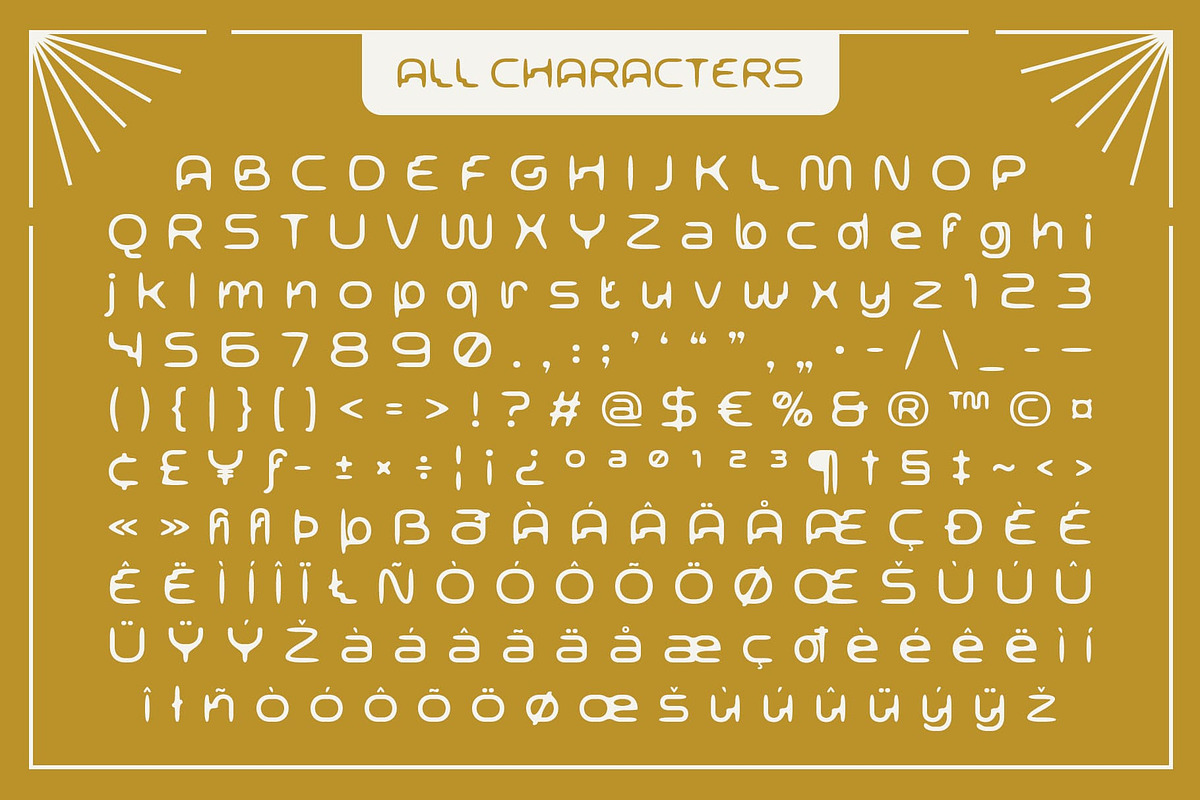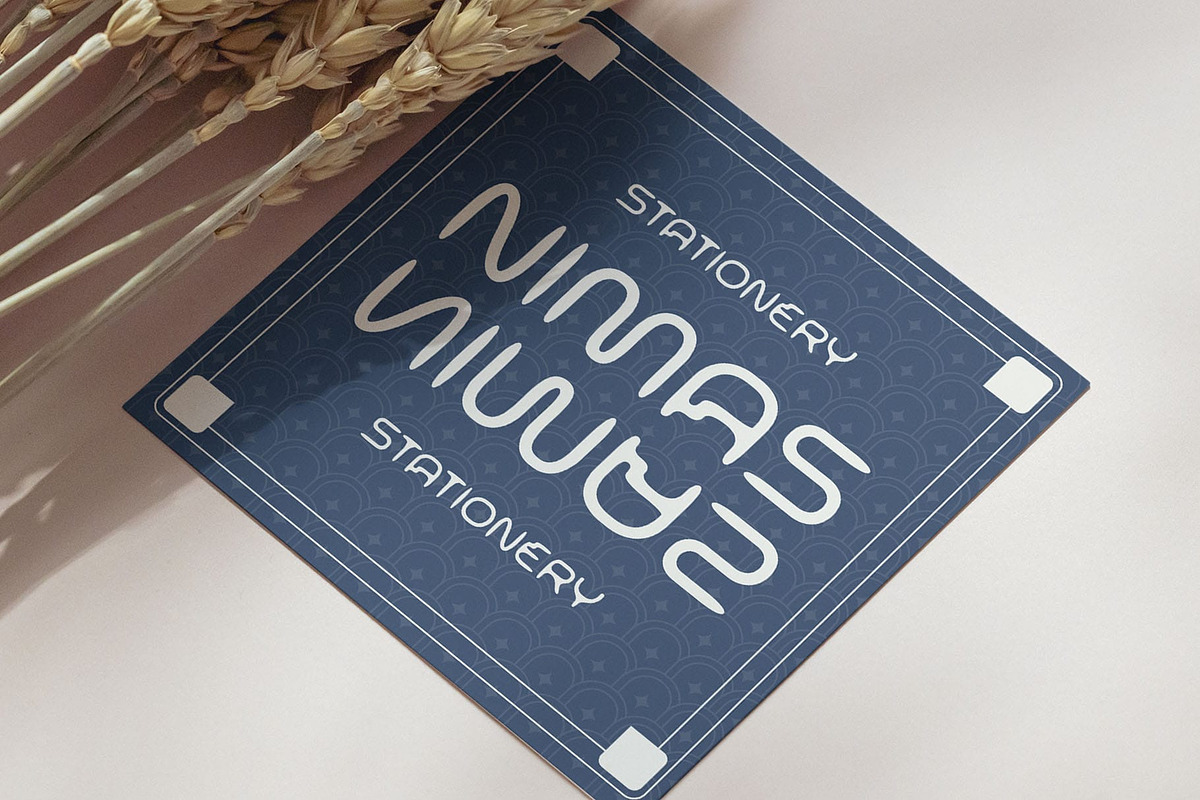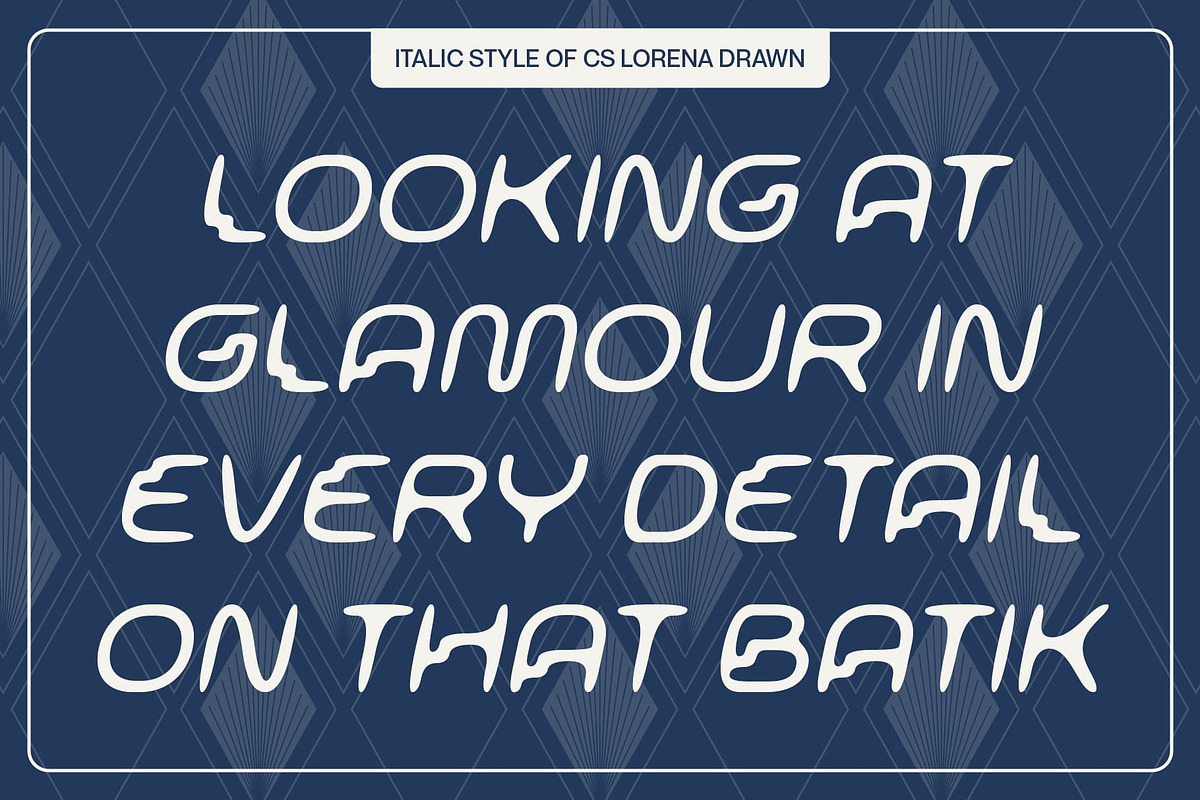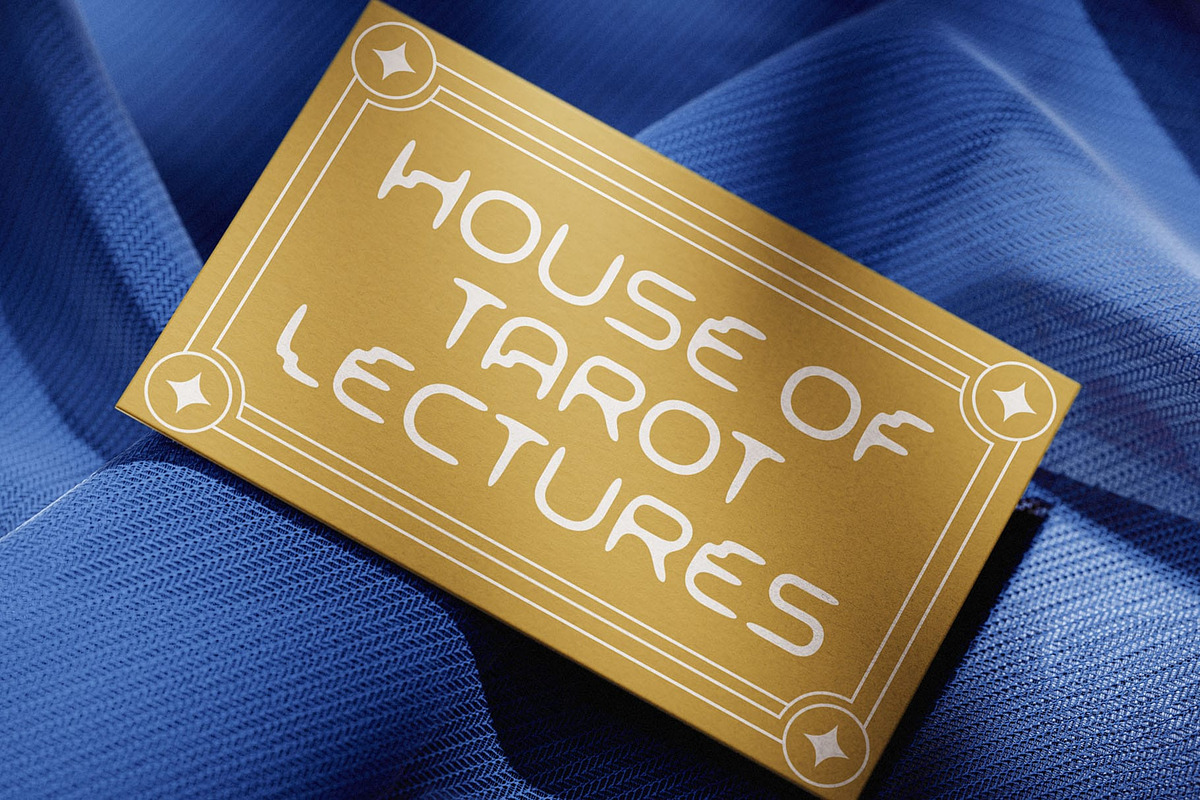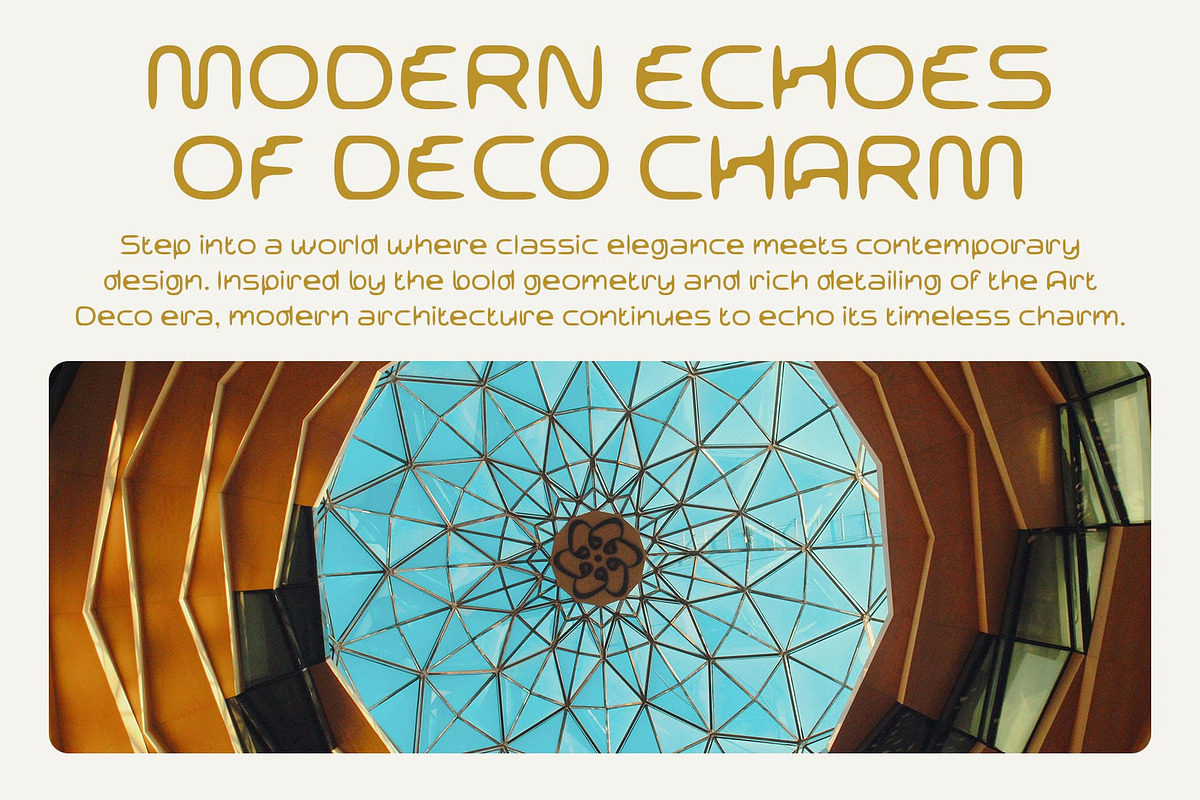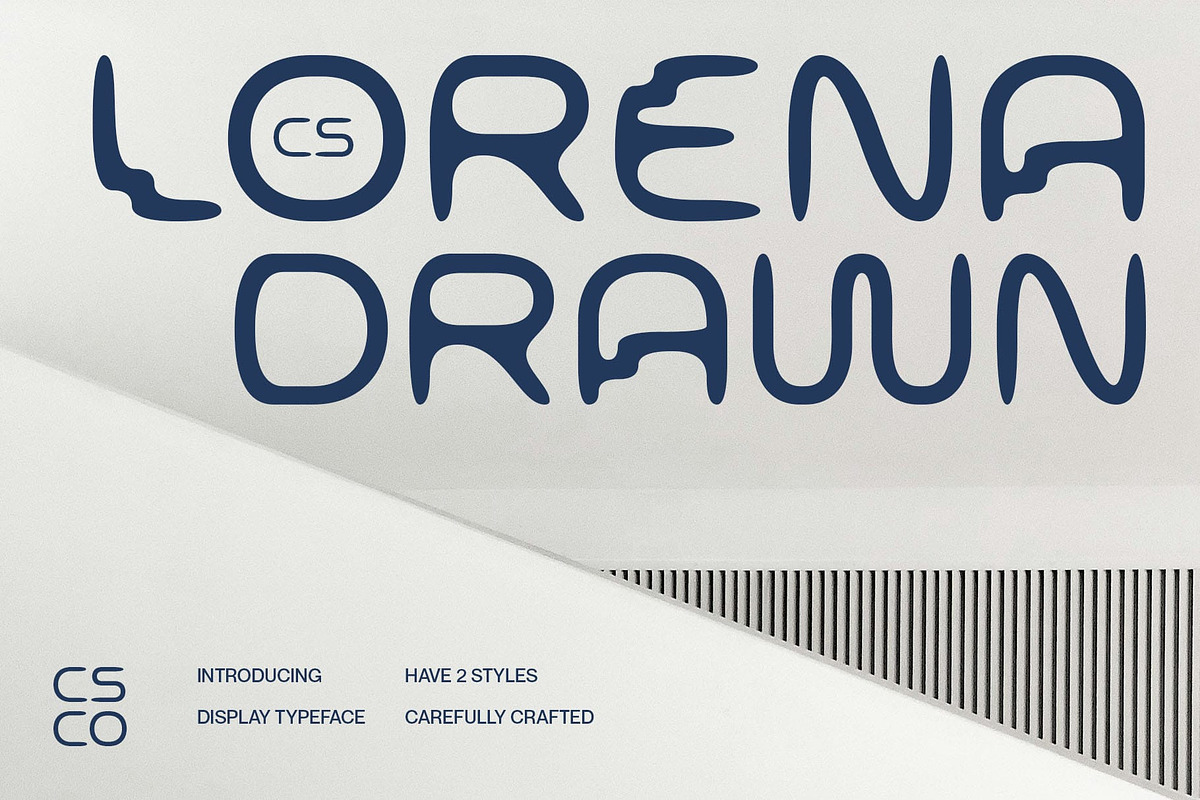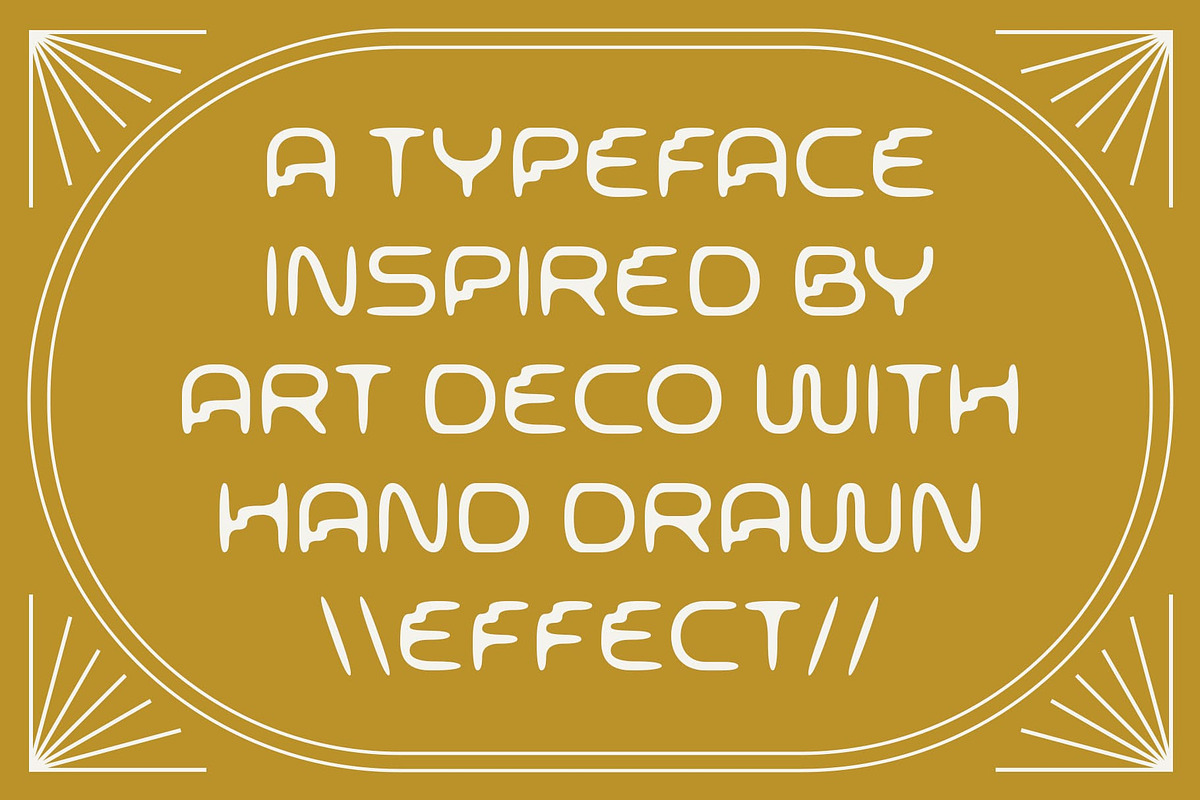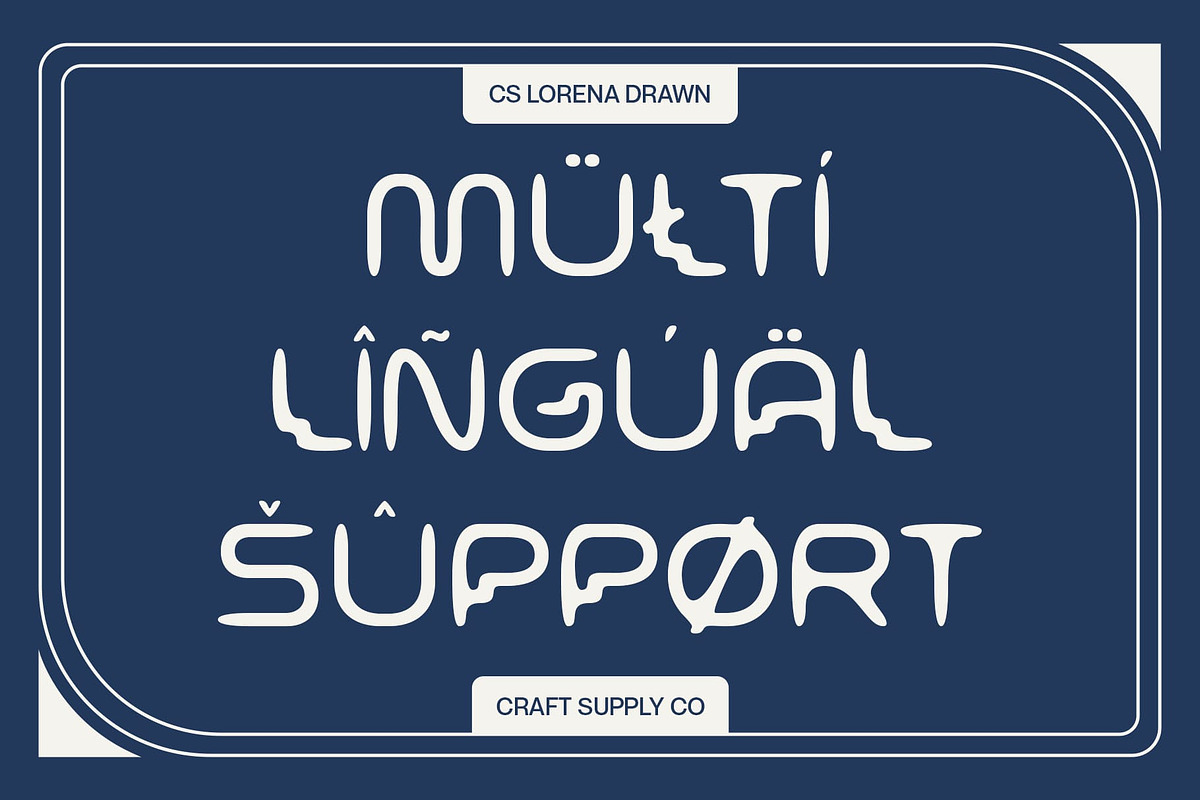
CS Lorena Drawn
CS Lorena Drawn: Where Art Deco Flair Meets Handcrafted Boldness
Modern Sans Serif with Art Deco Influence CS Lorena Drawn is a modern sans serif font that draws inspiration from the elegance of Art Deco while embracing geometric and contemporary design. Its clean lines and stylized shapes create a bold and funky visual language that feels both timeless and fresh—ideal for modern designs with a vintage twist.
Handcrafted Drawn Effect for Unique Texture The drawn effect gives this font a handcrafted, personal feel that adds depth and texture to its sleek structure. This handcrafted quality softens the sharp geometry, introducing a creative edge and making each letter feel original and expressive—perfect for projects seeking visual authenticity.
Bold, Funky, and Full of Character With its stylish and quirky personality, this contemporary font offers a bold impression that stands out in any setting. The combination of Art Deco elegance and modern flair gives it a unique identity, making it especially suited for vibrant, attention-grabbing compositions.
Perfect for Creative Branding and Statement Design Whether you’re working on creative branding, event posters, or experimental visual identities, this art deco font delivers a striking and artistic tone. Its fusion of retro charm and modern boldness makes it a versatile choice for designers aiming to leave a memorable mark.